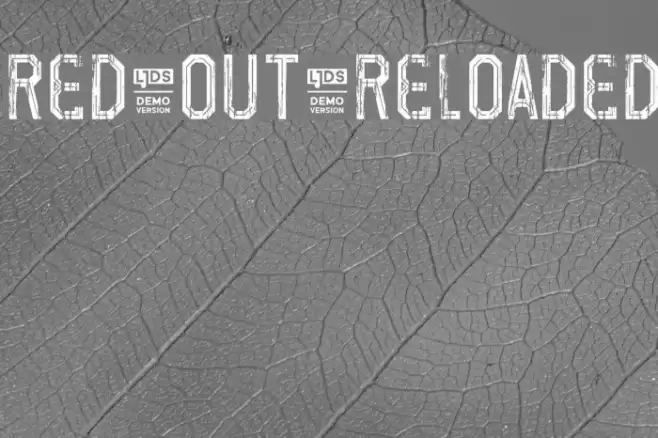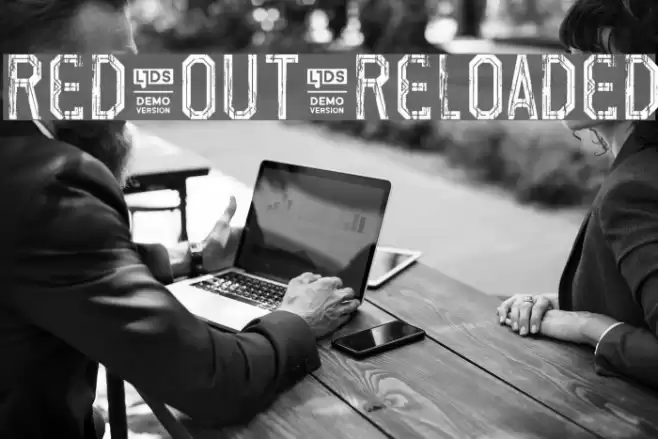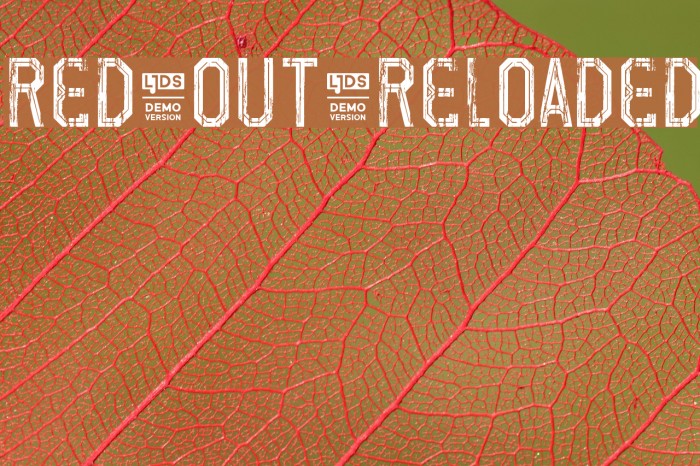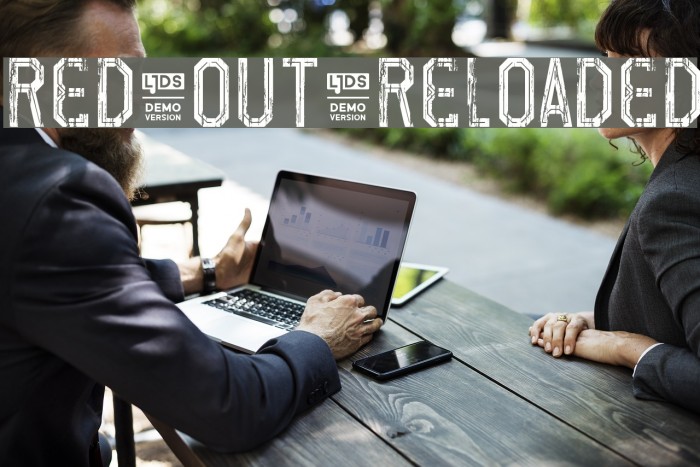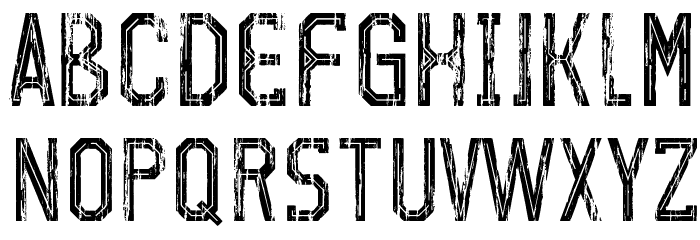
Red Out Reloaded Font
Red Out Reloaded Description
This font features a rugged, distressed style with a bold, industrial feel. The characters are uppercase only, with a blocky, geometric structure that is enhanced by a weathered texture, giving it a worn, vintage appearance. The design is reminiscent of stenciled lettering, often used in industrial or military contexts. The texture adds a layer of complexity, making it ideal for projects that require a gritty, urban aesthetic. The font's boldness ensures it stands out, while the distressed details add character and depth.
A bold, distressed font with an industrial, vintage feel from Uncategorized fonts.
- Proposed Projects: Ideal for branding, posters, album covers, and any project needing a rugged, industrial look.
- Overall Style: Vintage, Industrial